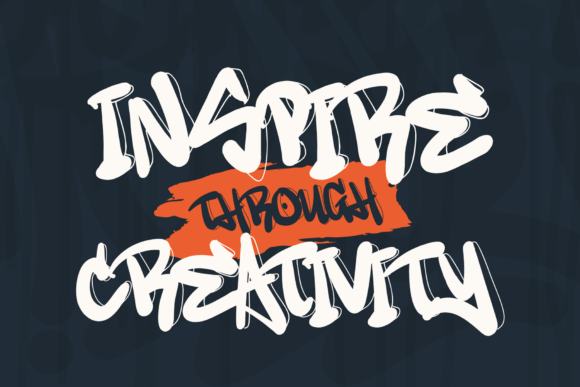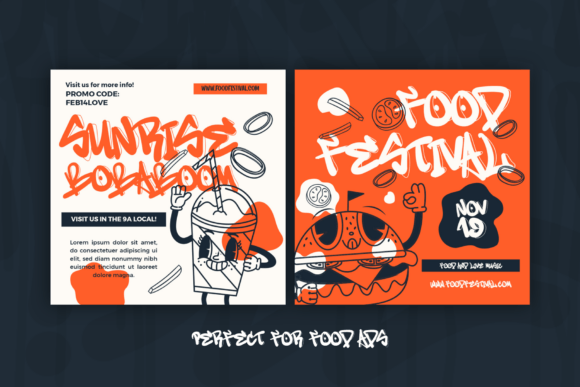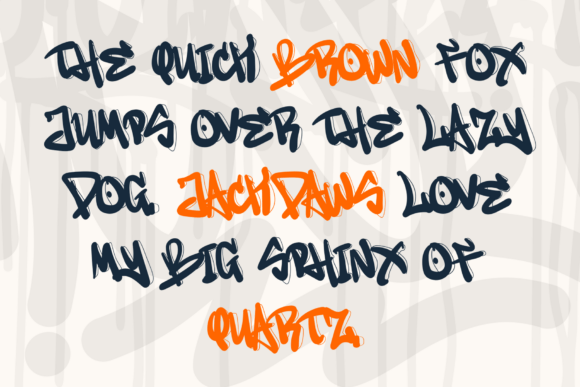
Break Rebel Font
Presenting Break Rebel – A robust, dynamic freestyle graffiti font that captures the unfiltered core of authentic street style. Beautifully crafted with an artistic flair, its distinctive thin decorative accents adorn each character, radiating a raw, rebellious spirit of creativity. The unparalleled versatility of this freestyle design is immediately apparent, seamlessly infusing all your projects with an urban edginess.From fashioning streetwear apparel, designing striking posters, embodying audacious brands, to crafting city-inspired digital art, Break Rebel seamlessly complements your creations with its endearing identity and sizzling personality. Its natural street allure elegantly couples with tasteful decorative subtlties, striking the perfect balance between guttural expression and stylistic refinement. Ignite your designs with the urban pulse of Break Rebel, and let them articulate a statement too enticing to overlook.